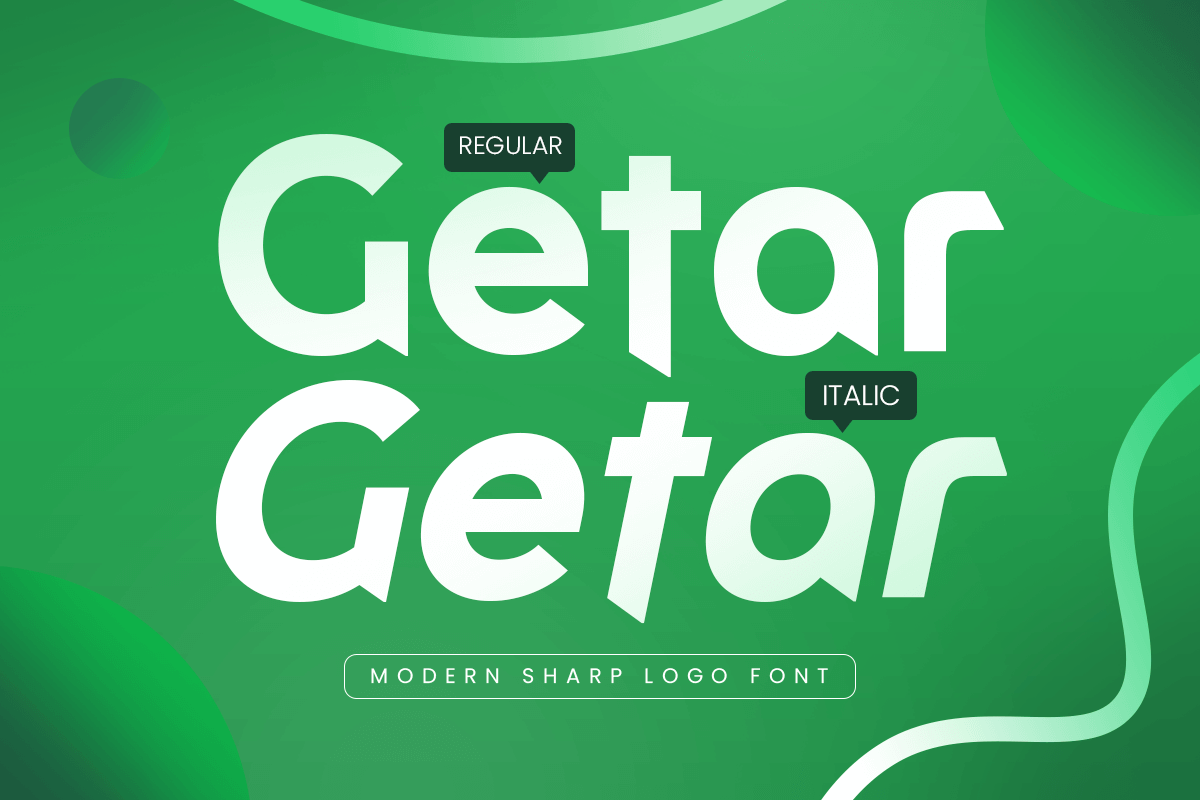
Getar
-Modern Sharp Logo Font
Getar - Modern Sharp Logo Font
Getar is a modern and sharp sans serif font tailored for finance, corporate branding, fintech, and business identity. With clean edges and a precise design structure, Getar font communicates professionalism, clarity, and strength in every character.
Whether you're designing for investment firms, banking platforms, tech startups, or business presentations, Getar font delivers a refined and trustworthy visual tone that supports confident messaging. Its bold yet minimal form makes it highly legible across both digital and print mediums.
Stand out in the financial and corporate world with Getar—a font that reflects structure, precision, and modernity.
Getar – Modern Sharp Finance Branding Logo Font Features
• Precision-cut shapes with bold professional appeal
• Getar font ready with Regular and Italic Version
• Ideal for finance, corporate, and technology branding
• Punctuation, numbers, and symbols included
• Uppercase and lowercase letters
• OpenType features for consistent design flow